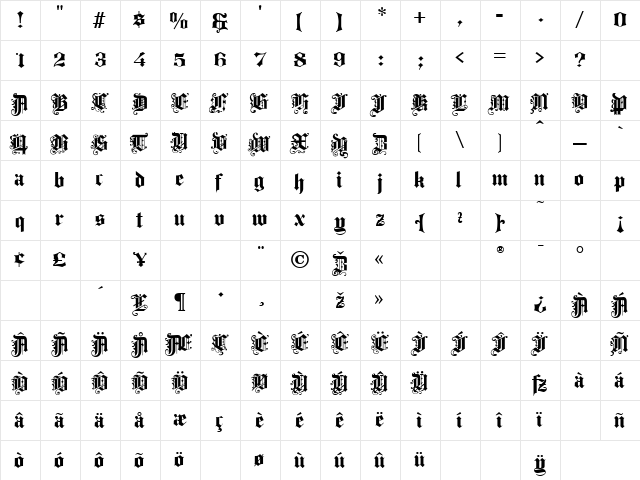
Progressive Text Normal Font Preview
Progressive Text Normal
Design Context for Progressive Text Typeface
Progressive Text is a composed and adaptable typeface that performs quietly and consistently across a wide range of design contexts.